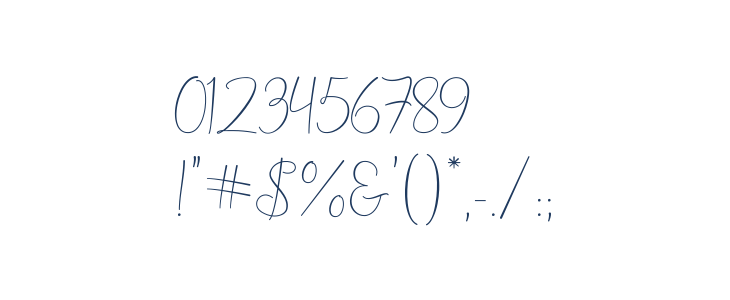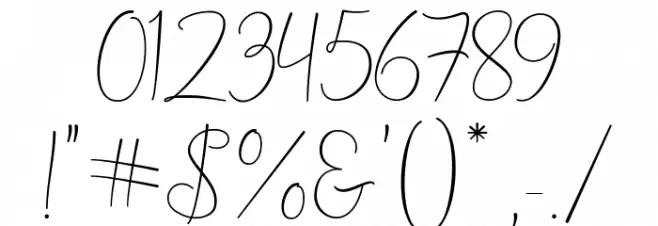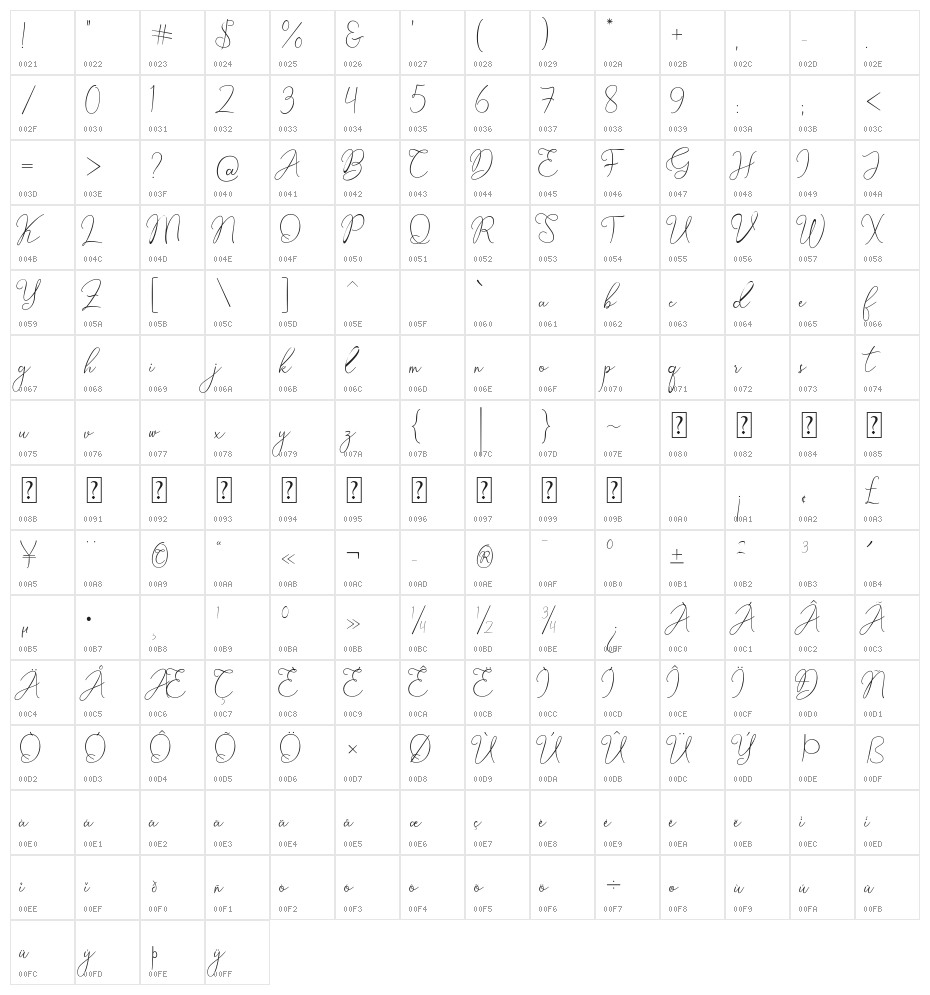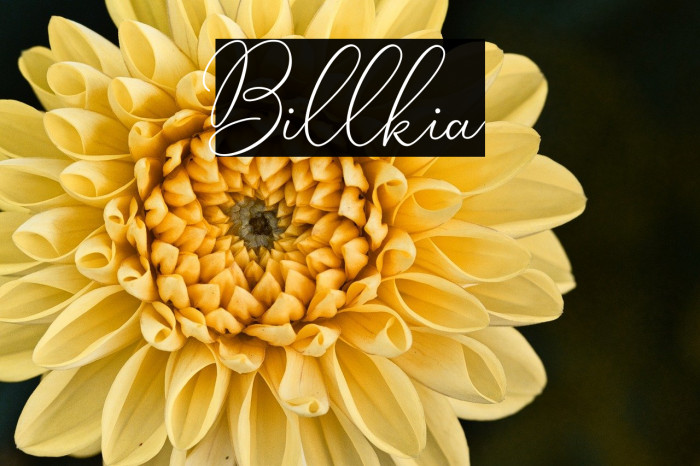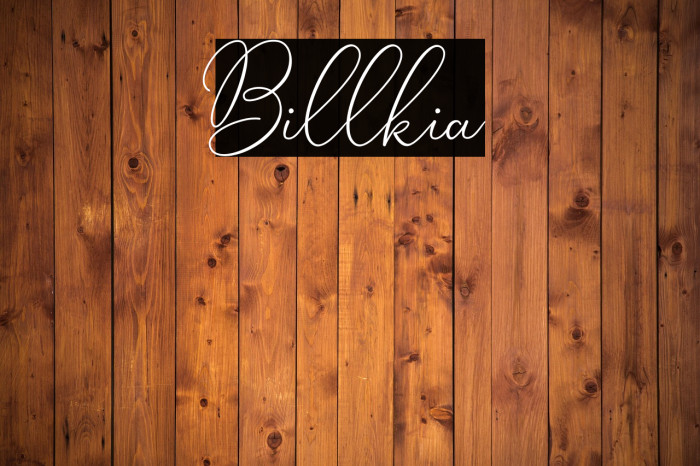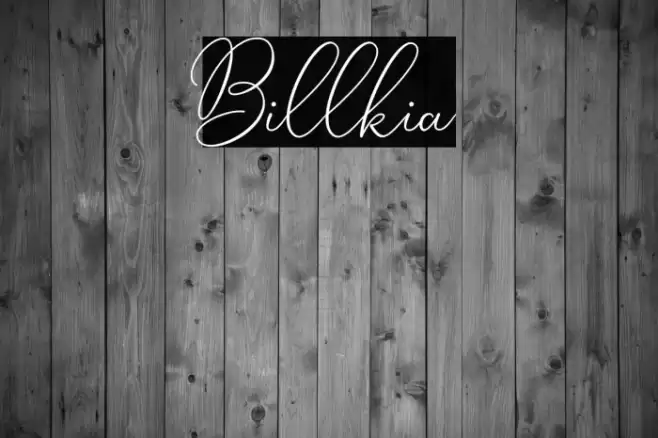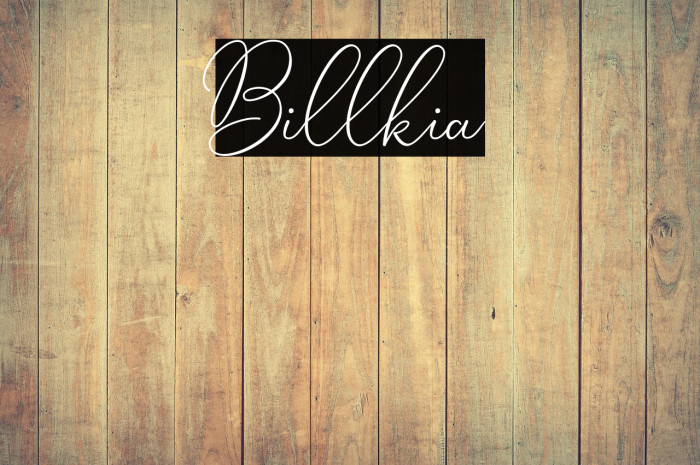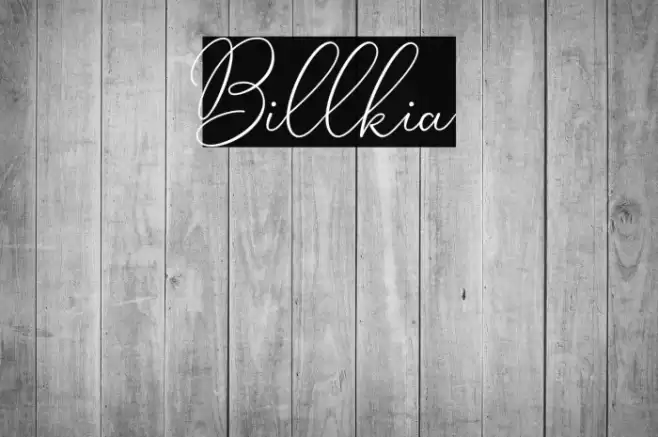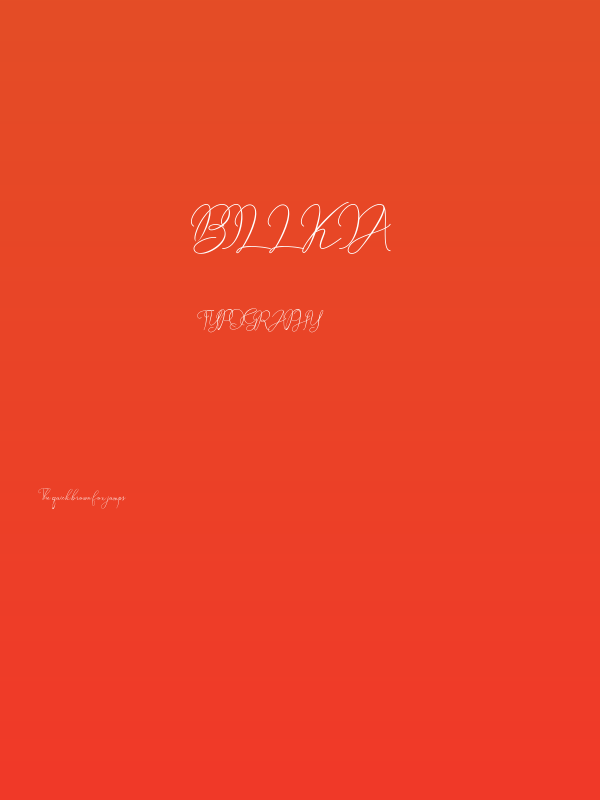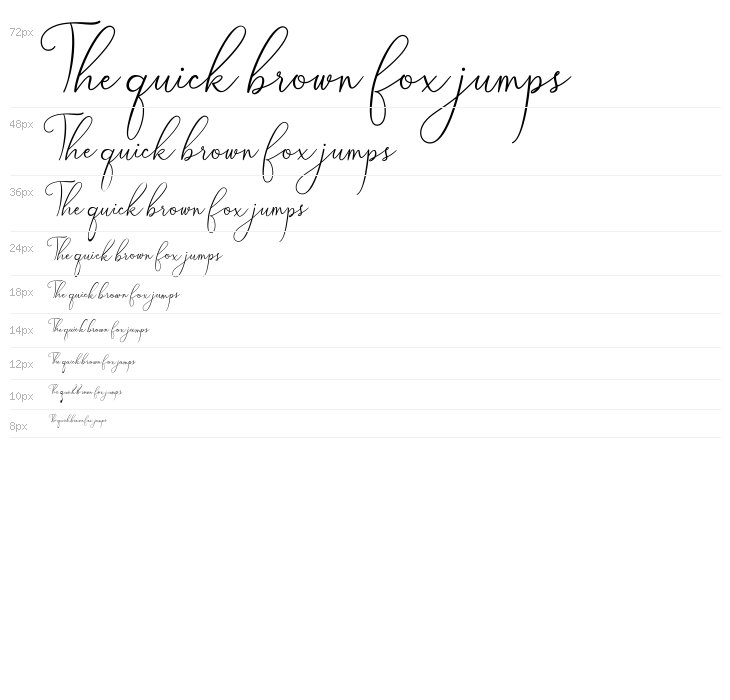
Billkia Font
Billkia Description
This font exhibits a graceful and flowing script style, characterized by its elegant and fluid letterforms. The uppercase letters are intricately designed with sweeping curves and loops, creating a sense of sophistication and charm. The lowercase letters maintain a consistent flow, complementing the uppercase with their delicate and connected strokes. The numerals are stylishly crafted, maintaining the overall aesthetic of the font. Special characters are thoughtfully integrated, enhancing the font's versatility. This font is perfect for projects that require a touch of elegance and refinement.
| Proposed Projects | Ideal for wedding invitations, elegant branding, personal stationery, and decorative quotes. |